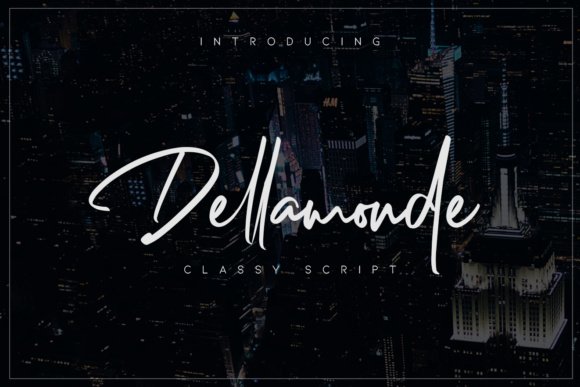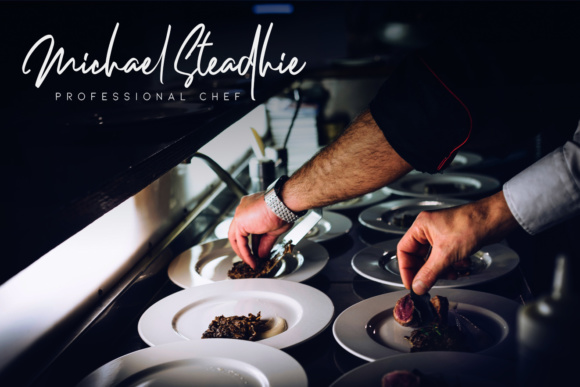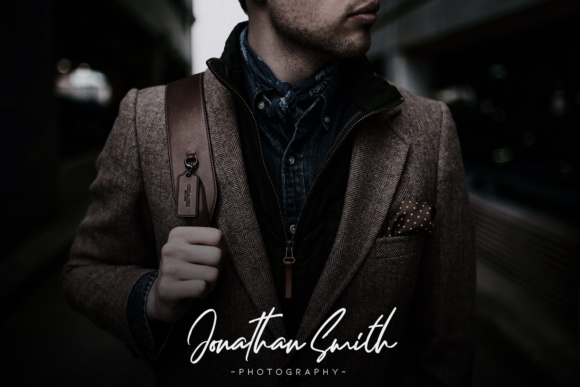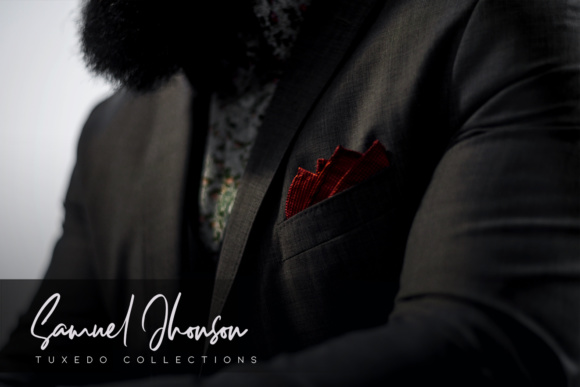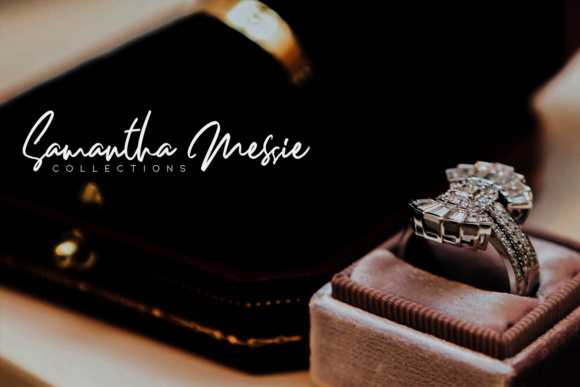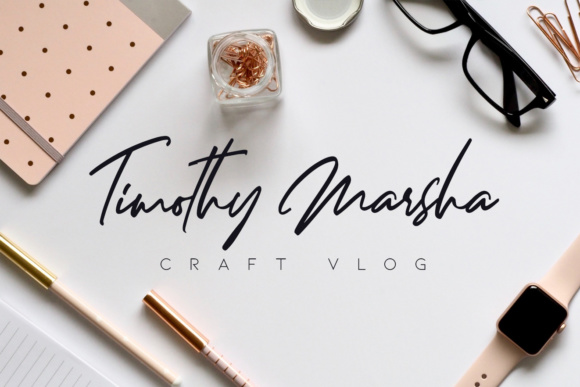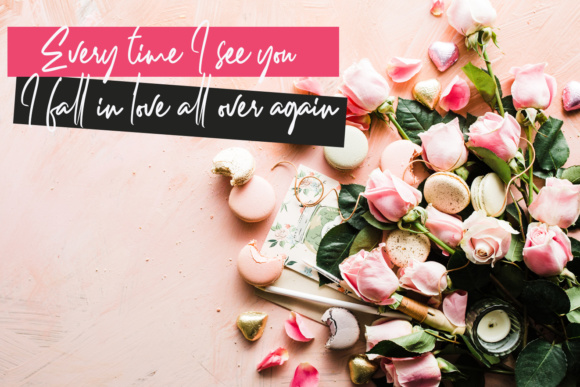
The Perfect Script for Your Next Design Masterpiece
Have you ever been working on a design project and suddenly, a spark of creativity strikes? The perfect font pops into your head, and you know exactly how to elevate your design to the next level. For many designers, this moment is what makes all the hard work worth it. And for those who are looking to add a touch of luxury to their designs, the Dellamonde Script Font is a game-changer.
This classic script font is available in two styles: regular and italic, making it versatile for a wide range of design projects. Whether you’re creating a wedding invitation, a luxury brochure, or a high-end logo, the Dellamonde Script Font adds a classy touch that’s sure to impress. As a valuable asset for designers, this font is a must-have for anyone looking to take their designs to the next level.
Dellamonde Script Font Key Features
- Font Style: Script Font with elegant and cursive design, suitable for creative and artistic projects.
- Unique Characteristics: Features swashes, flourishes, and ligatures that add a touch of sophistication and elegance to any design.
- Language Support: Supports a wide range of languages, including Latin, Cyrillic, and Greek, making it suitable for global design projects.
Dellamonde Script Font Review
Overall, I’m impressed with the Dellamonde Script Font. It’s a beautiful, elegant script font that works well for various design projects, especially those that require a touch of sophistication and luxury.
- High-end feel: The Dellamonde Script Font has a high-end feel that’s perfect for luxury brands, weddings, or special events.
- Beautiful ligatures: The font has beautiful ligatures that add to its elegance and sophistication.
- Great for long text: Despite being a script font, Dellamonde works well for long text and can be used for articles, stories, or even novels.
- Limited font sizes: Dellamonde Script Font may not be the best choice for very small font sizes, as it can become difficult to read.
- Not suitable for bold text: The font is not ideal for bold text, as it can become too thick and heavy.
- Not suitable for digital signage: Due to its elegant and luxurious feel, Dellamonde Script Font may not be the best choice for digital signage or other display uses.
The Dellamonde Script Font is a beautiful and elegant font that works well for various design projects. While it has some limitations, it’s a great choice for luxury brands, weddings, or special events. With the right use case, this font can add a touch of sophistication and luxury to any design project.
Dellamonde Script Font: A Practical Application Guide
To get the most out of the Dellamonde Script Font, use it sparingly and in moderation. It’s perfect for headings, titles, and short quotes. You can also use it in conjunction with other fonts to create a beautiful, balanced design.
The Dellamonde Script Font is perfect for:
- Event graphics and signage
- Blog and website headers
Alternatives to Dellamonde Script Font
Great Vibes is a beautiful, elegant script font perfect for creating a luxurious and high-end feel in your designs. It’s ideal for use in invitations, branding, and packaging.
Great Vibes is more refined and sophisticated than Dellamonde Script Font, making it a great choice for formal events and high-end products. It also has a more consistent and flowing feel, making it easier to read.
Carolyna Pro is a modern script font with a elegant and sophisticated feel. It’s perfect for use in branding, packaging, and advertising.
Carolyna Pro is more modern and edgy than Dellamonde Script Font, making it a great choice for younger audiences and trendy designs. It also has a more versatile feel, making it suitable for a wide range of applications.